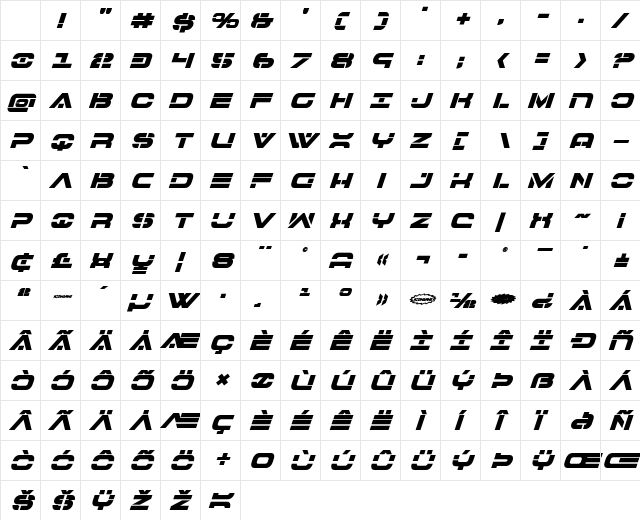
7th Service is a composed and adaptable typeface that performs quietly and consistently across a wide range of design contexts. The slanted form adds forward momentum and visual energy. Its bold stroke weight gives it real presence on the page.